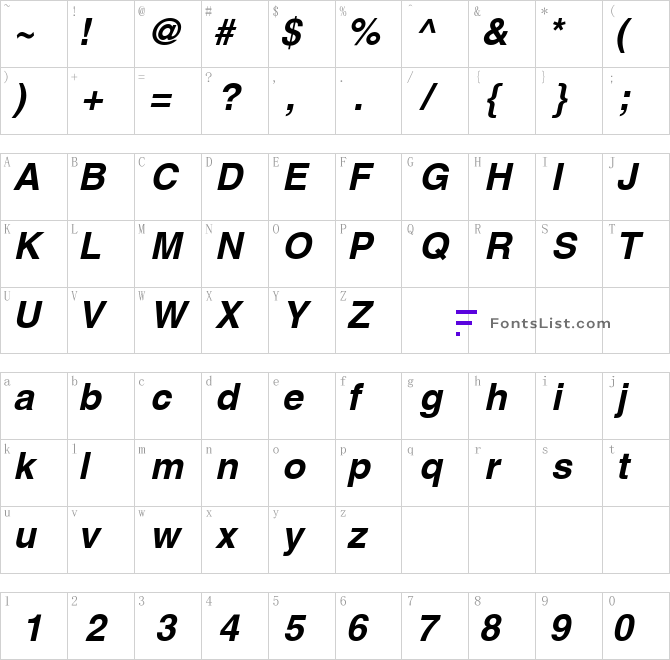
- Font Name:AGHlvCyrillic
- Subfamily:Bold-Italic
- Subfamily:FontMonger:AGHlvCyrillic Bold-Italic
- Full Name:AGHlvCyrillic Bold-Italic
- PostScript:AGHlvCyrillicBold-Italic
AGHlvCyrillic-Bold-Italic.ttf is a very beautiful artistic font, AGHlvCyrillic-Bold-Italic.ttf is widely used in the design and printing of various books and pictures,AGHlvCyrillic-Bold-Italic.ttf has a strong visual impact,AGHlvCyrillic-Bold-Italic.ttf is a commonly used font in newspapers, magazines and books, and is used in posters, e-commerce Poster design, store design, logo design, font design and other fields.AGHlvCyrillic-Bold-Italic.